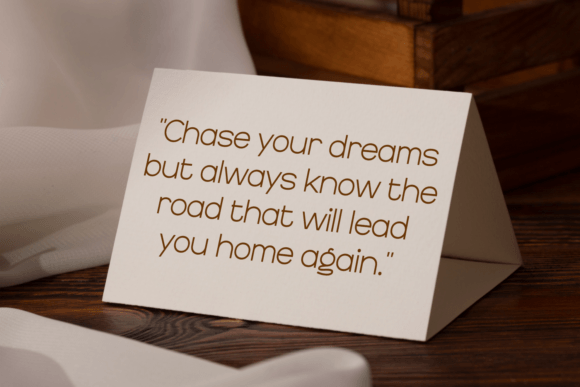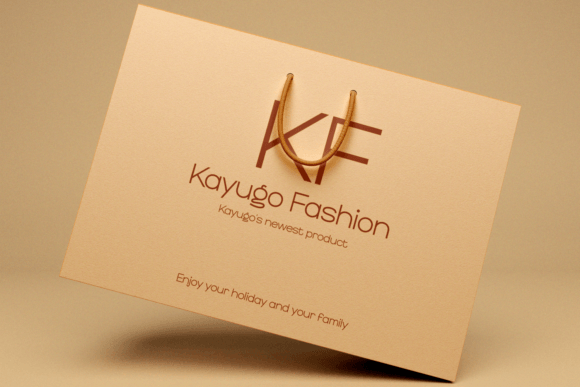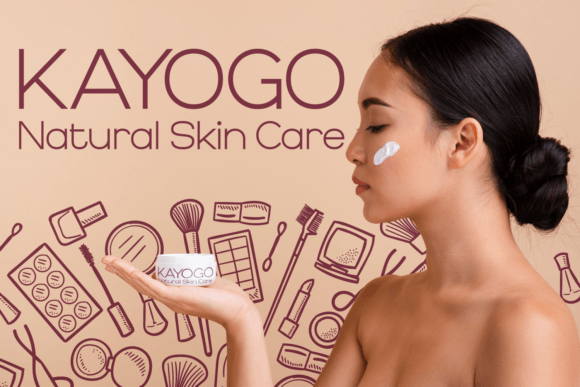
Discover the Elegance of Forgetting Dreams Font: A Modern Sans-Serif Marvel
In the realm of typography, few fonts manage to strike a balance between elegance and minimalism as effectively as Forgetting Dreams. This modern sans-serif font has been gaining attention for its unique blend of clean lines, soft curves, and a nostalgic feel that evokes a sense of tranquility. Whether you’re a designer looking for the perfect typeface for your branding project, an editorial designer seeking to elevate your publication, or a crafter aiming to add a touch of sophistication to your creations, Forgetting Dreams is an excellent choice.
The Essence of Forgetting Dreams Font
Forgetting Dreams is not just another font; it’s an experience. Its design is centered around creating a harmonious visual experience that feels both timeless and contemporary. The clean lines provide a sense of clarity and precision, making it ideal for reading and understanding content with ease. Meanwhile, the soft curves add a layer of warmth and approachability, ensuring that the font doesn’t feel too rigid or cold.
One of the standout features of Forgetting Dreams is its versatility. This font can seamlessly adapt to various design contexts, from digital interfaces to print materials. For branding projects, it offers a sophisticated look that can elevate a company’s visual identity. In editorial designs, such as magazines, newspapers, and blogs, Forgetting Dreams brings a level of elegance and readability that’s hard to match. Even for crafters working on DIY projects, scrapbooking, or any form of creative expression, this font provides a stylish and modern aesthetic.
Why Choose Forgetting Dreams?
There are several reasons why designers and crafters are gravitating towards Forgetting Dreams:
- Elegant Aesthetic: The font’s design strikes a perfect balance between elegance and simplicity, making it suitable for projects that require a touch of sophistication.
- Readability: The clean lines and carefully considered letterforms ensure excellent readability, even at smaller sizes.
- Versatility: It can be used across a wide range of projects, from digital platforms to print materials.
- Uniqueness: While it maintains a classic feel, Forgetting Dreams has a unique character that sets it apart from more traditional sans-serif fonts.
Using Forgetting Dreams in Your Projects
- Branding: Use Forgetting Dreams as a primary font for your logo, website, and marketing materials to create a cohesive brand image.
- Editorial Design: It’s perfect for headings and body text in magazines, blogs, and newspapers, offering both style and legibility.
- Digital Interfaces: For web designers and app developers, Forgetting Dreams can enhance the user experience with its clean and modern look.
- Crafting: Add a touch of elegance to your handmade projects, such as journals, cards, and DIY crafts.
Forgetting Dreams font is a remarkable addition to the world of typography, offering a unique blend of modern sans-serif aesthetics with a touch of nostalgia and tranquility. Its versatility, elegance, and readability make it an excellent choice for a wide range of projects. Whether you’re a professional designer or a crafty DIY enthusiast, Forgetting Dreams can help you achieve a timeless yet contemporary look that’s sure to captivate your audience. Discover the beauty of Forgetting Dreams and elevate your designs to new heights.